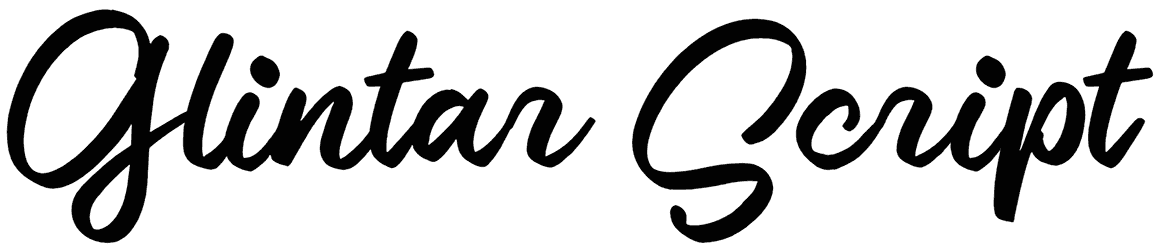
Glintar Script Font
A handwritten font similar to Glintar Script can let you have enough dominance in the realm of designing flyers, menus, banner ads, gift cards, or product packaging. This script font comes with rounded and curved characters, thus it can add a feeling of vivacity, personalization, and uniqueness to all of your editorial projects.